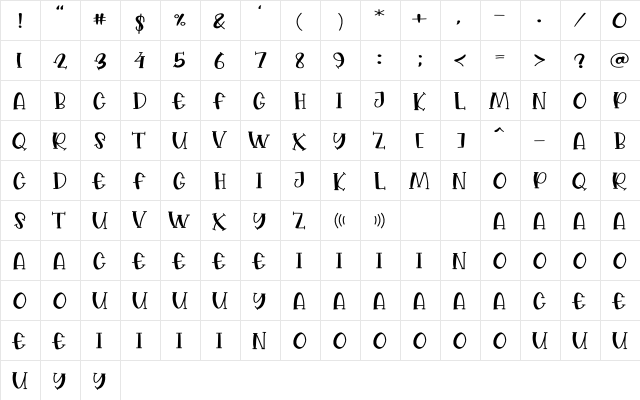
Shells And Starfish Regular
Design Context for Shells And Starfish Typeface
Shells And Starfish is a composed and adaptable typeface that performs quietly and consistently across a wide range of design contexts.